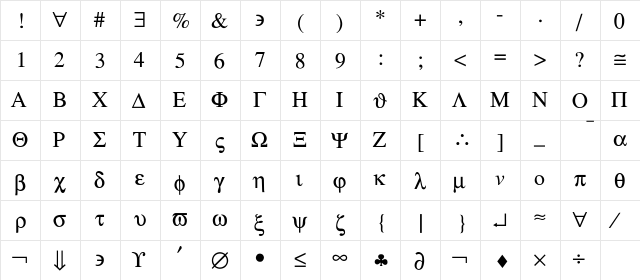
symbol-Light Regular
Design Context for symbol-Light Typeface
symbol-Light takes a measured approach to typography — its balanced proportions and neutral character make it a reliable workhorse for both digital and print work. The delicate stroke weight brings airiness and refinement to layouts.